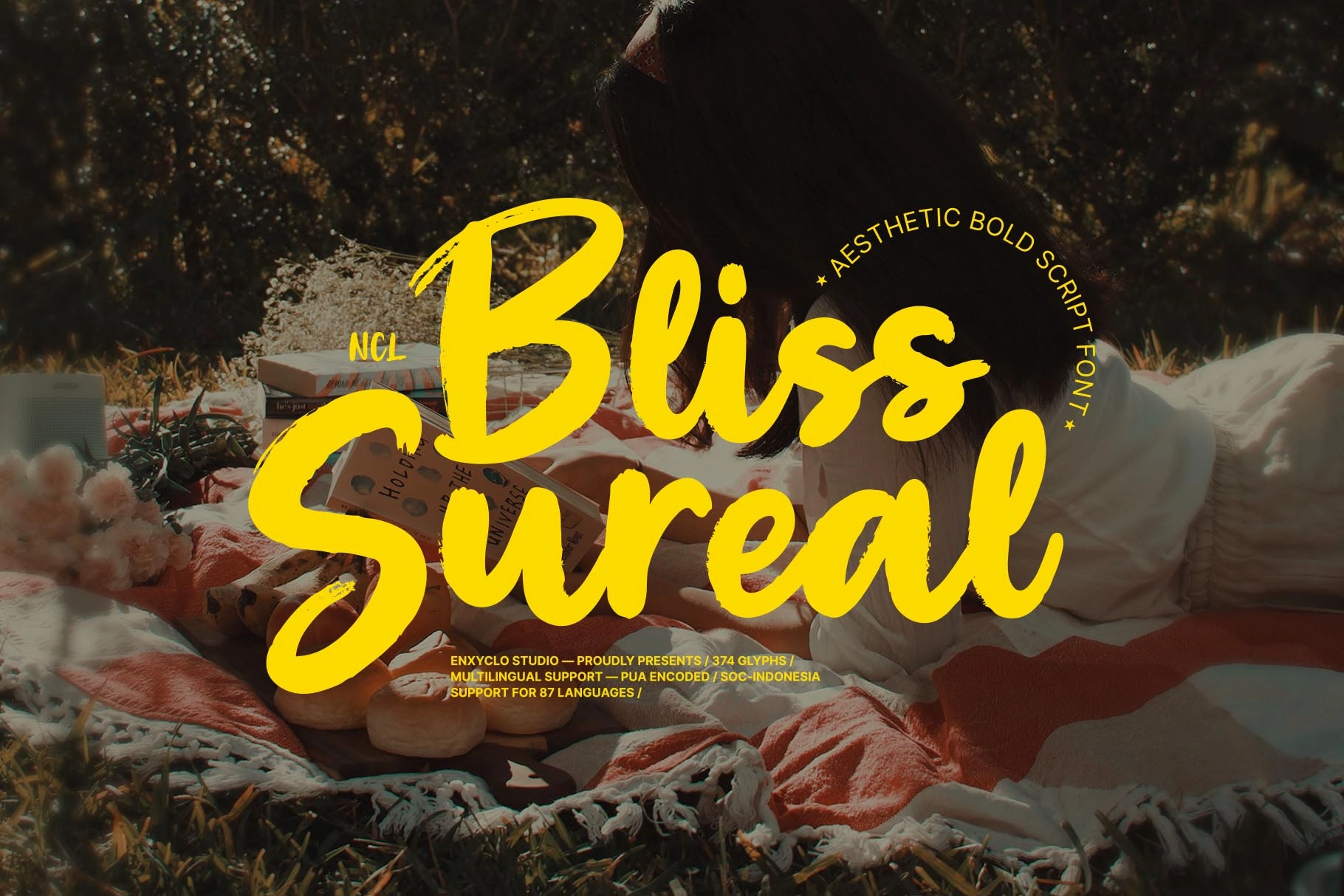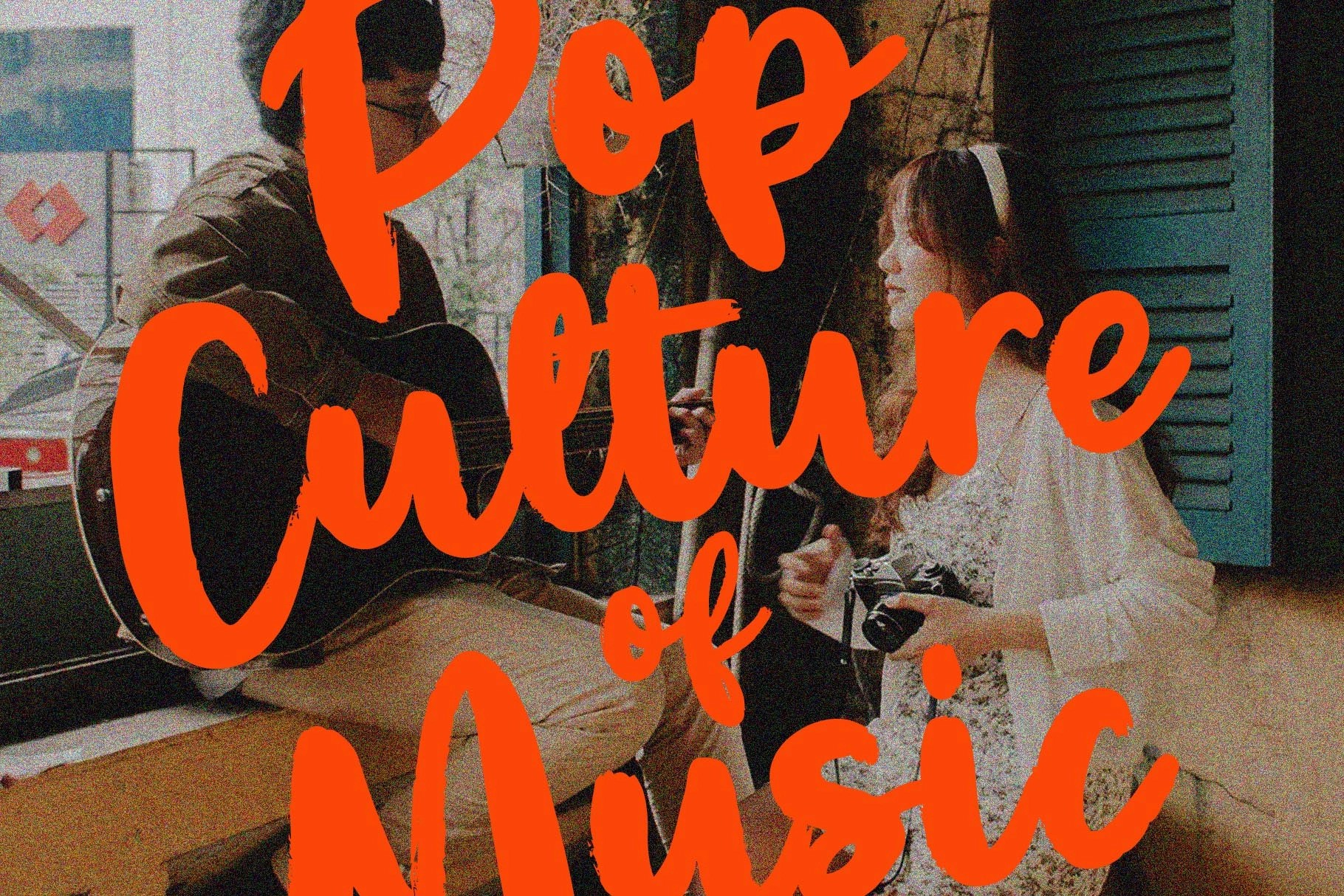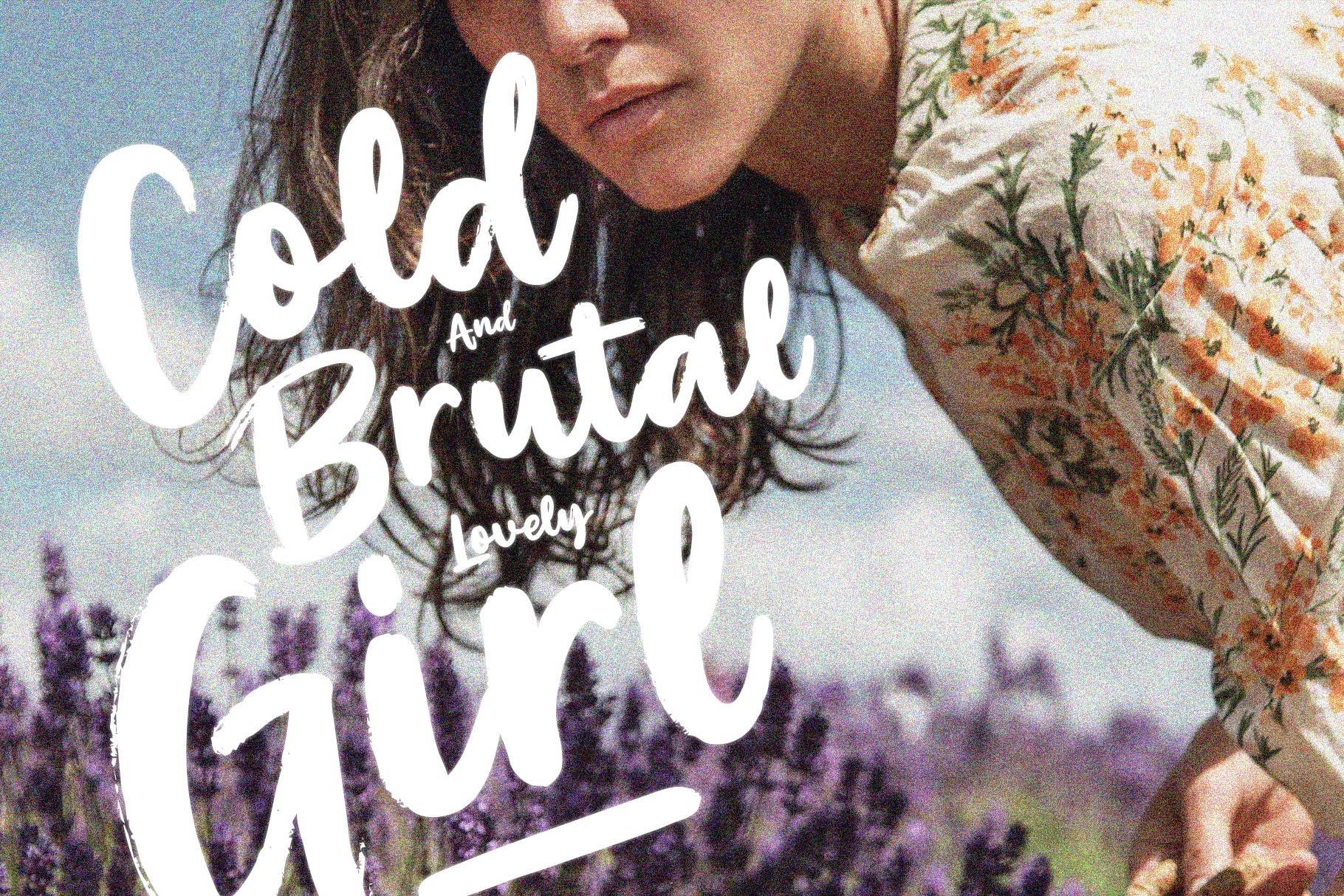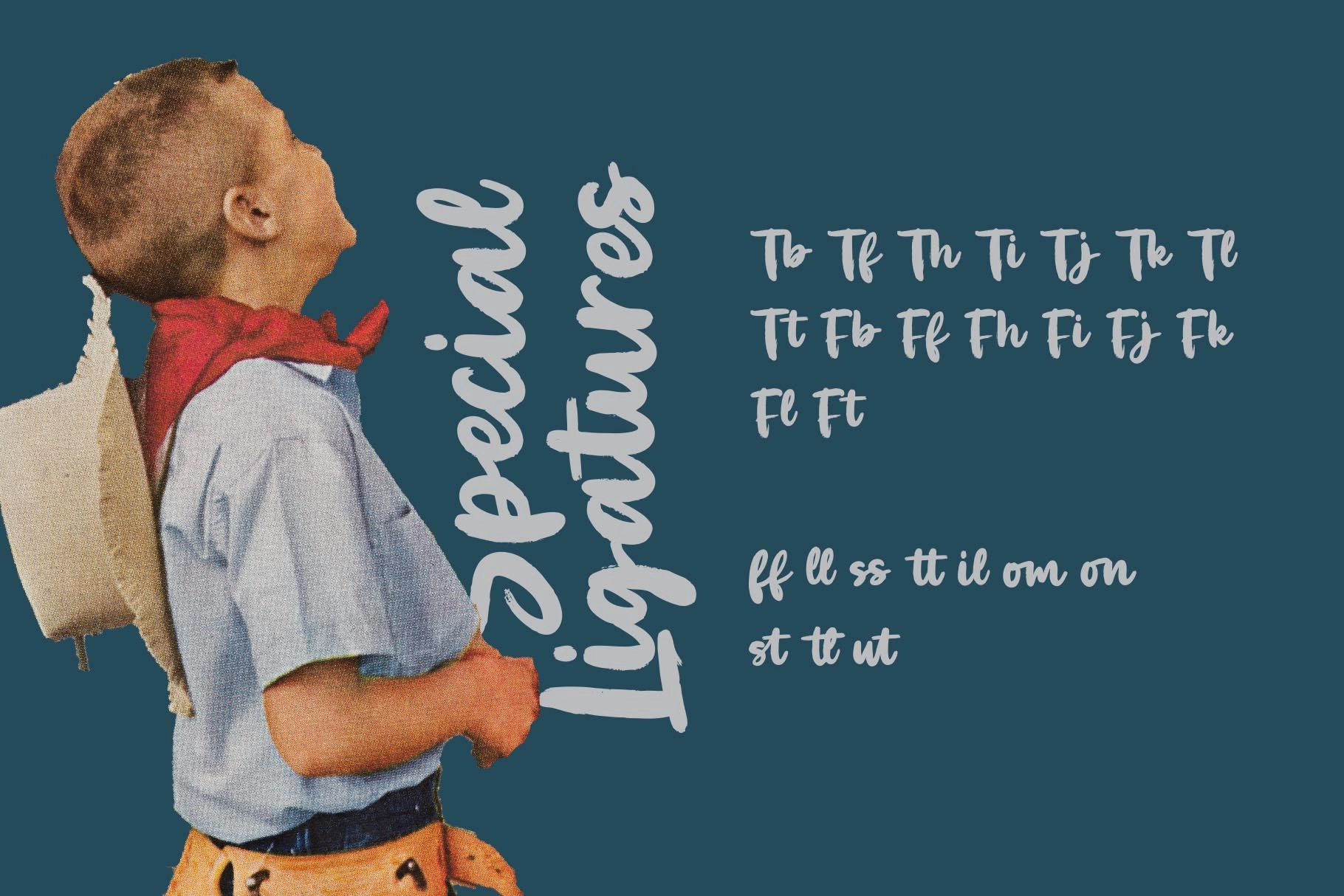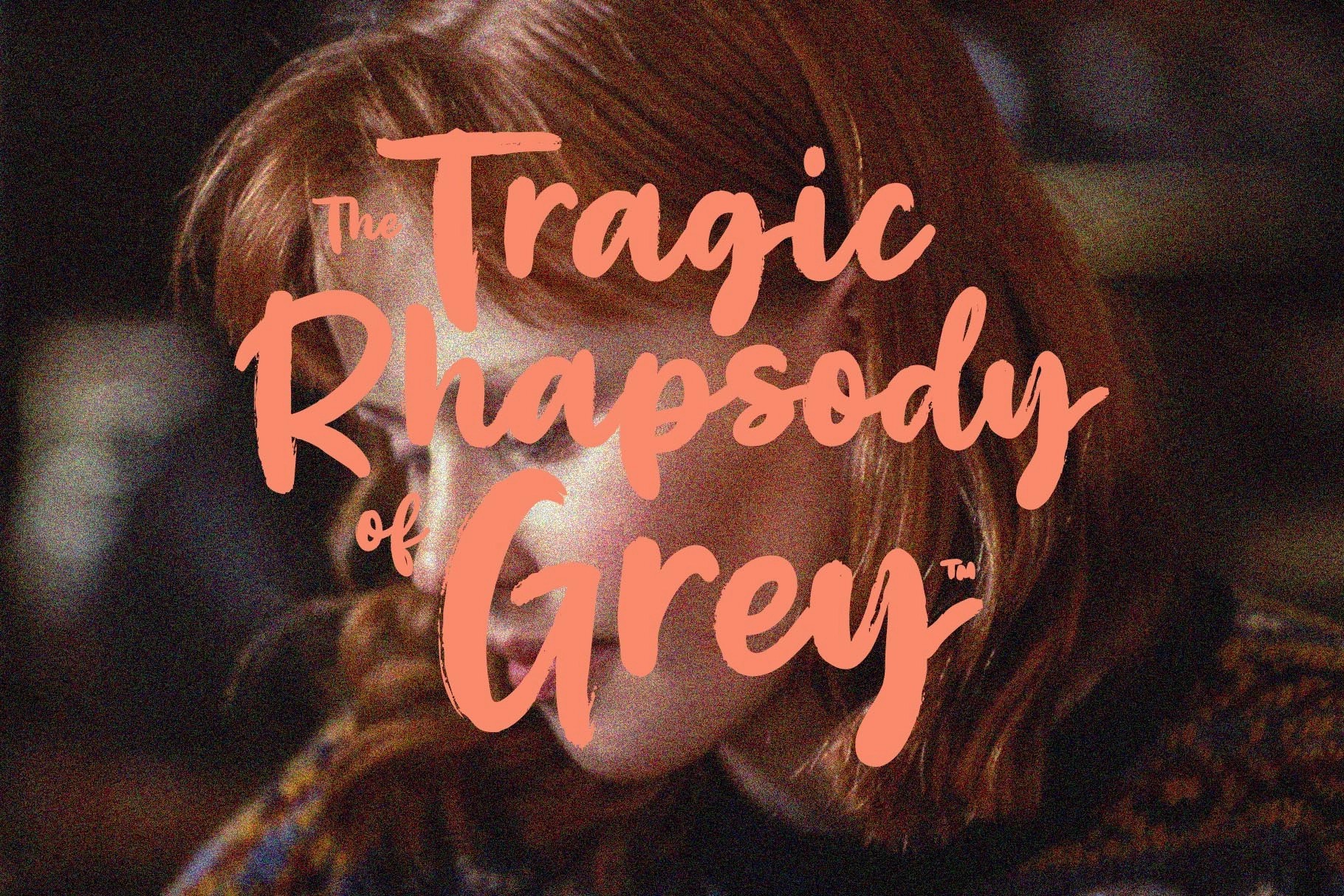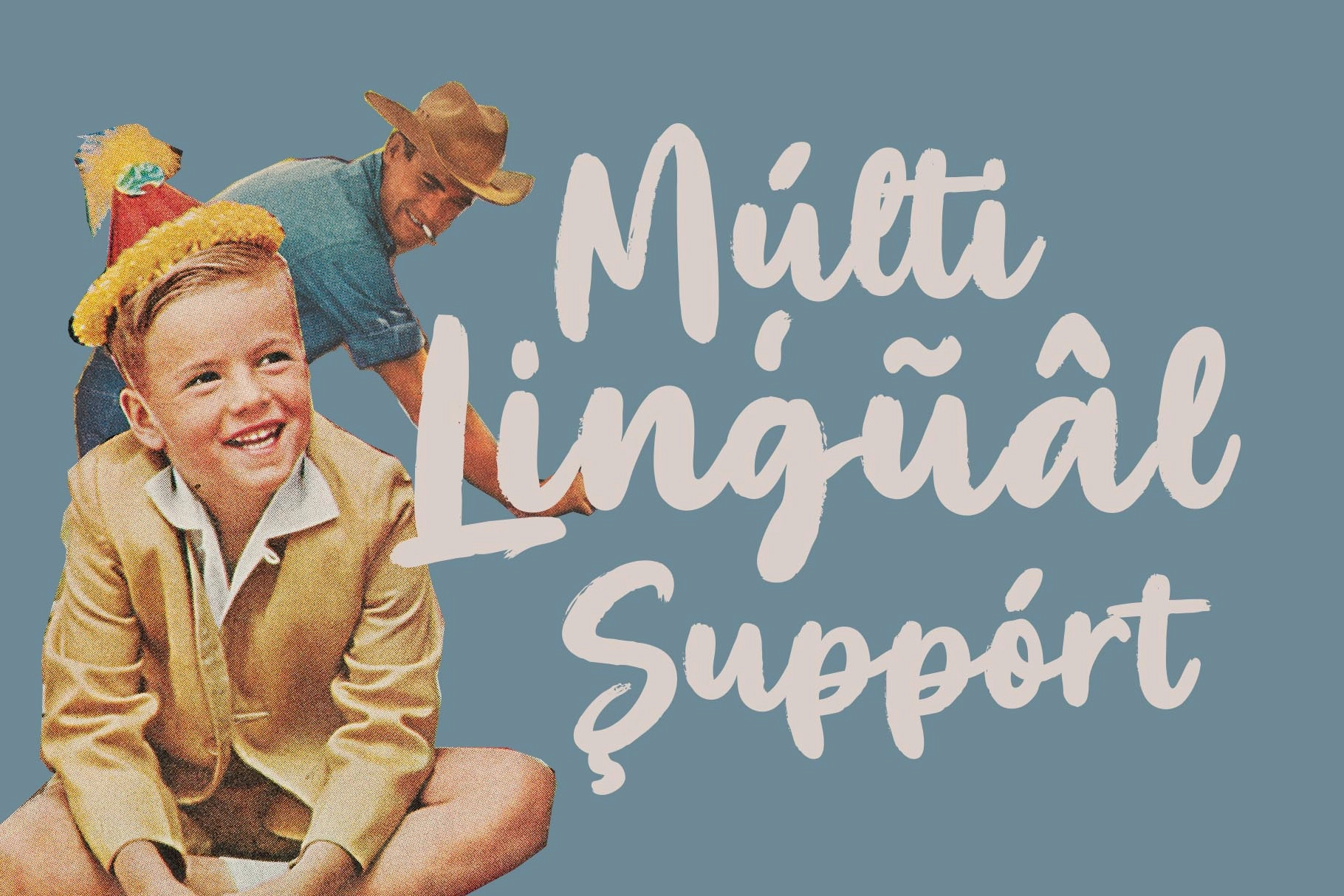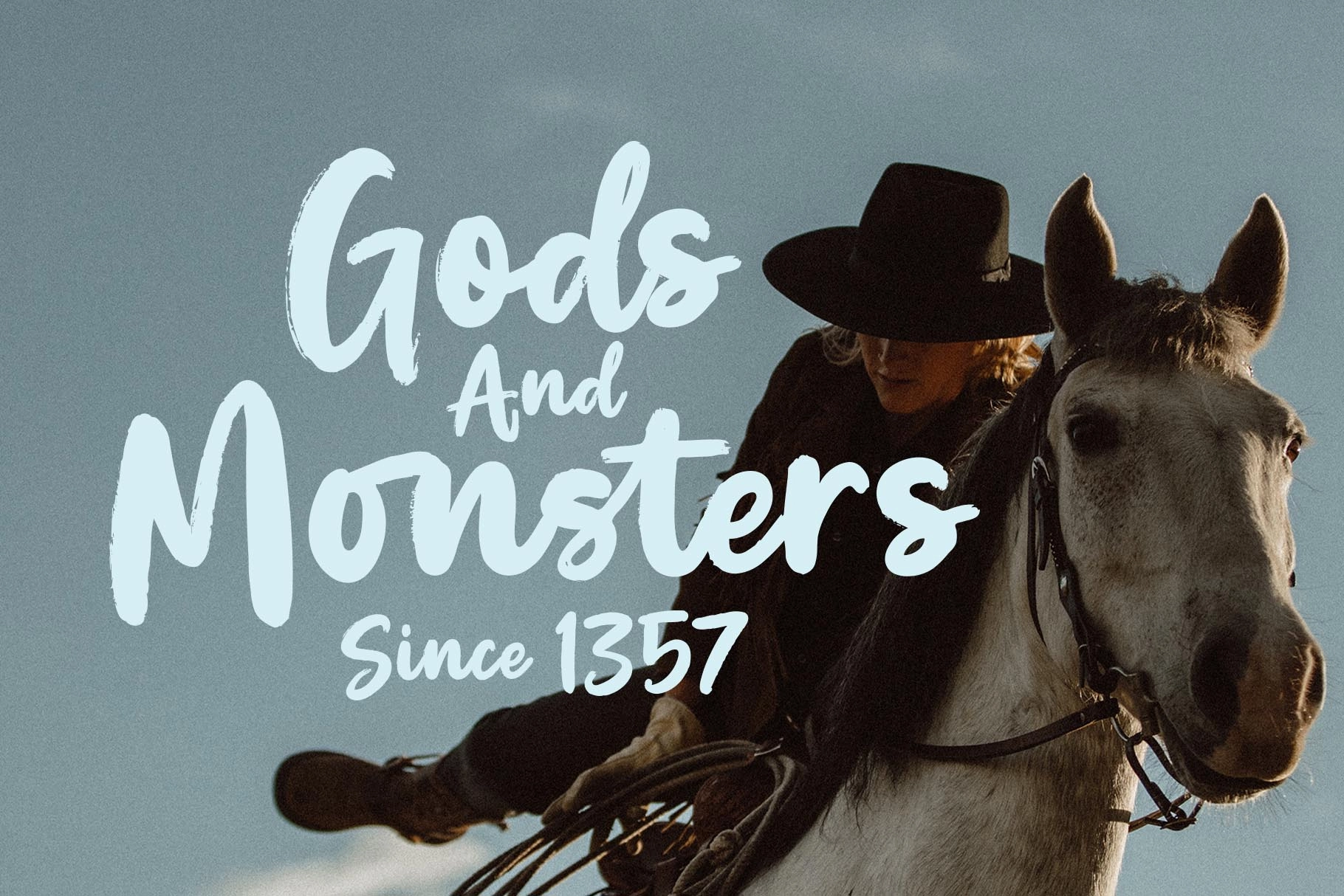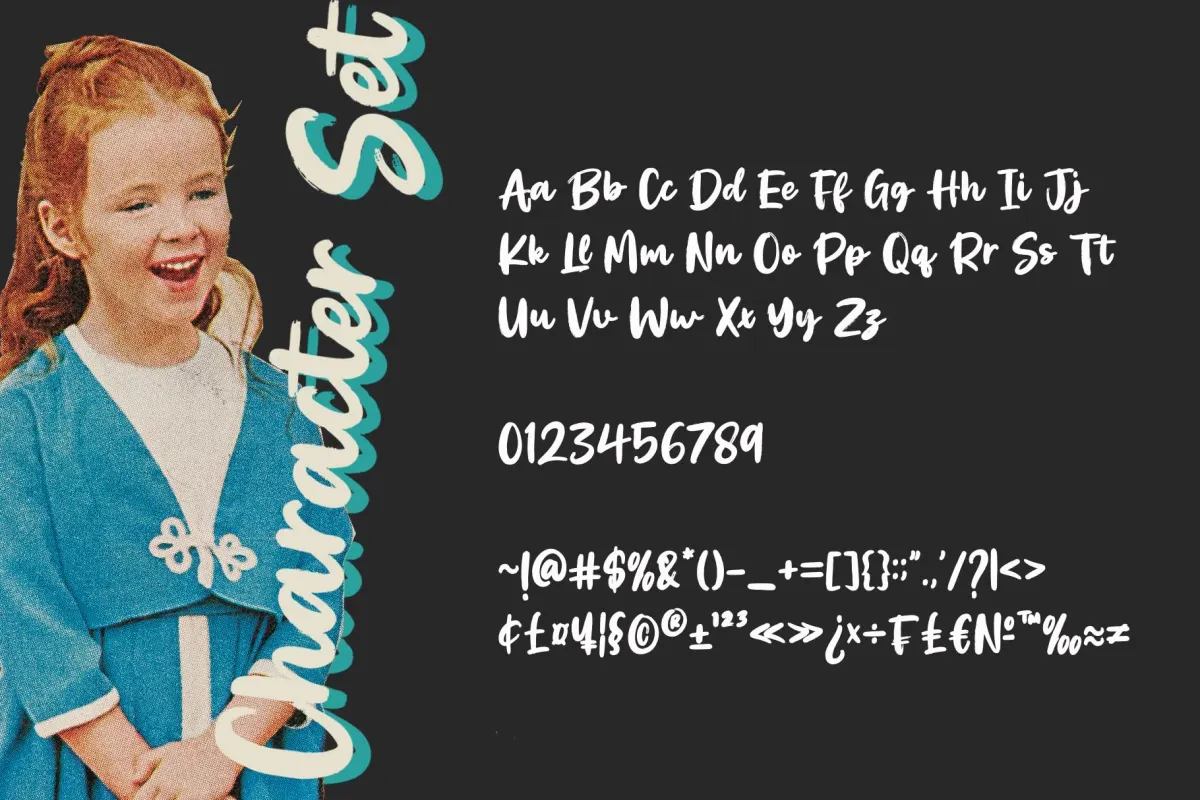
Bliss Sureal - Bold Brush Script Font
Bliss Sureal – Bold Brush Script Font is a dynamic brush script typeface that blends expressive hand-painted strokes with a modern-classic display style. Designed with bold movement and energetic curves, this font delivers a lively and stylish personality that instantly elevates headlines, logos, and branding projects. Its expressive brush texture adds a handcrafted feel while maintaining a clean structure that works beautifully across both print and digital designs.
Created to perform strongly at large sizes while remaining readable in smaller compositions, Bliss Sureal is perfect for posters, billboards, branding, magazines, websites, merchandise, and creative campaigns. The rich set of glyphs and ligatures allows designers to craft unique typographic compositions, making this font a powerful addition to any creative toolkit.
• 374 Glyphs
• 25 Ligatures
• Uppercase & Lowercase Characters
• Numerals
• Punctuation, Symbols & Currency Characters
• Bold Brush Script Style